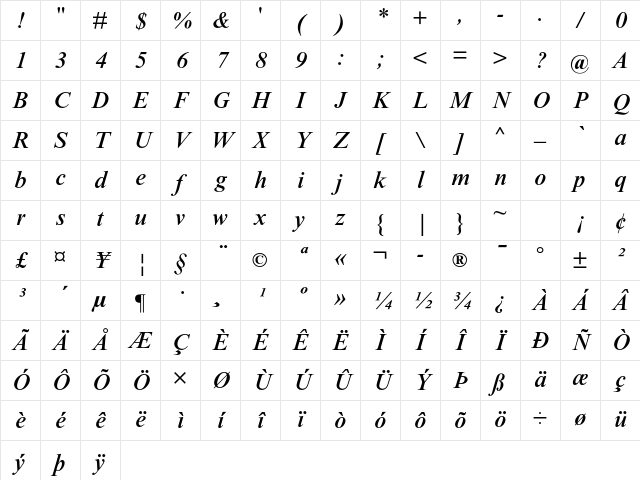
Times NR MT Std Medium It
Style: Medium It
Design Context for Times NR MT Std
Times NR MT Std is a composed and adaptable typeface that performs quietly and consistently across a wide range of design contexts.